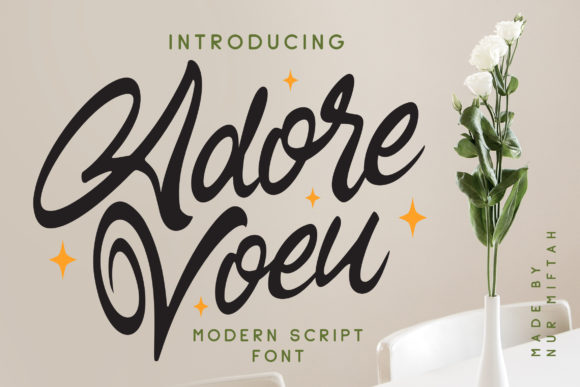
The Designer’s Delight: Adore Voeu Font
I’ll never forget the time I was working on a project for a client who wanted a font that was both modern and elegant. I had spent hours scouring the internet for the perfect script, but nothing seemed quite right. That was until I stumbled upon Adore Voeu. This stunning font caught my eye with its unique style and confident vibe. From that moment on, I was hooked! In this article, I’ll share my love for Adore Voeu, its features, and how to make the most of it in your designs.
- ✨ Unique and modern script style that stands out from the crowd
- 💫 Beautifully crafted with attention to detail
- 🎨 Versatile and can be used for a wide range of design projects
While Adore Voeu is an amazing font, there are a few things to keep in mind:
- 🤔 Some users may find the font a bit too condensed for certain design applications
- Experiment with OpenType features, such as stylistic alternates, to add visual interest
The Story Behind Adore Voeu
Adore Voeu was created with the intention of crafting a modern script that exudes confidence and style. The designer aimed to create a font that would be both unique and highly legible, making it perfect for a wide range of design applications. While the exact story behind Adore Voeu may be unknown, its impact on the design community is undeniable.
Q: What makes Adore Voeu unique?
A: Adore Voeu’s distinct style and modern script design make it stand out from other fonts.
Q: Is Adore Voeu suitable for body text?
A: While Adore Voeu is highly legible, it’s recommended for use in headlines or titles rather than body text.